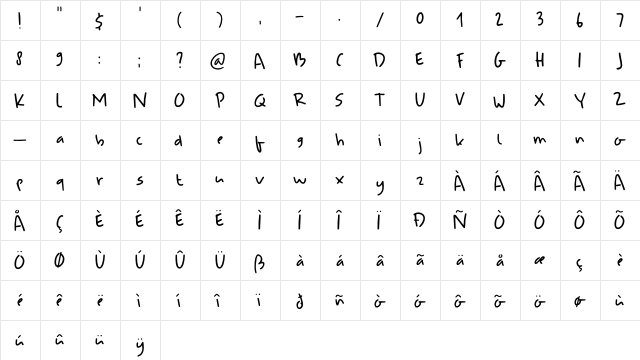
DK Udon Soup Regular
| Foundry | David Kerkhoff |
| Designer | David Kerkhoff |
Design Context for DK Udon Soup Typeface
DK Udon Soup is a composed and adaptable typeface that performs quietly and consistently across a wide range of design contexts.